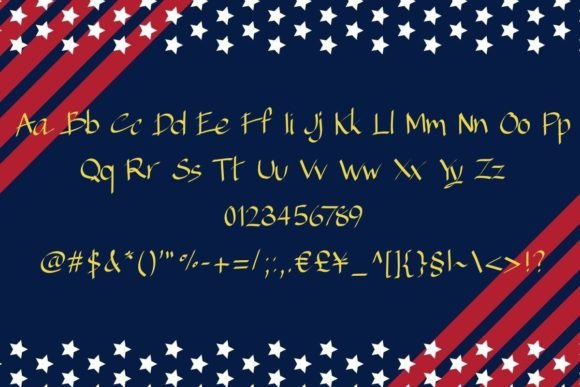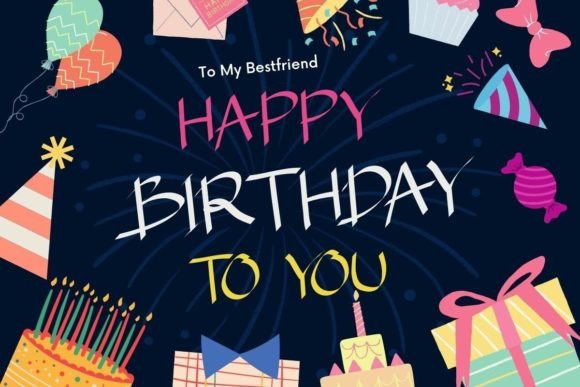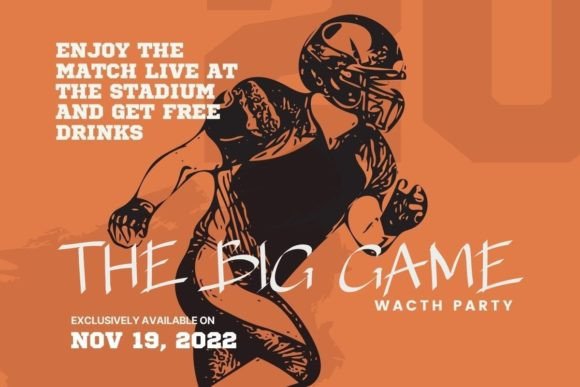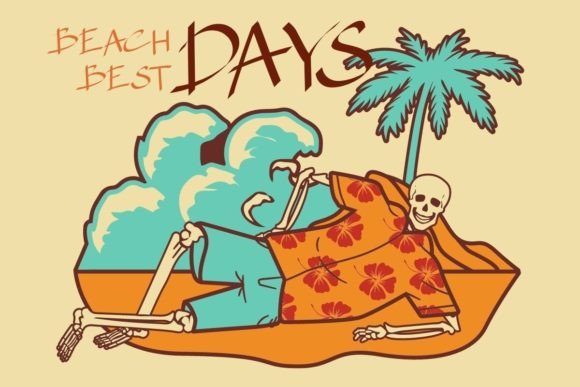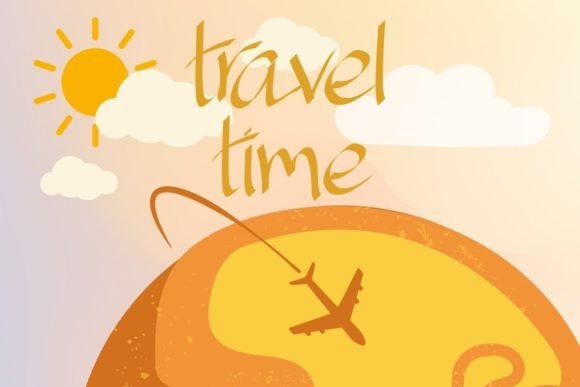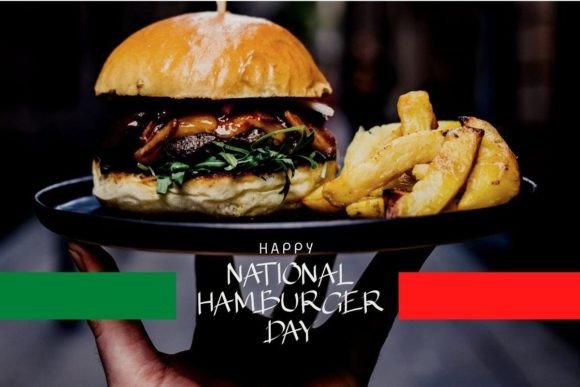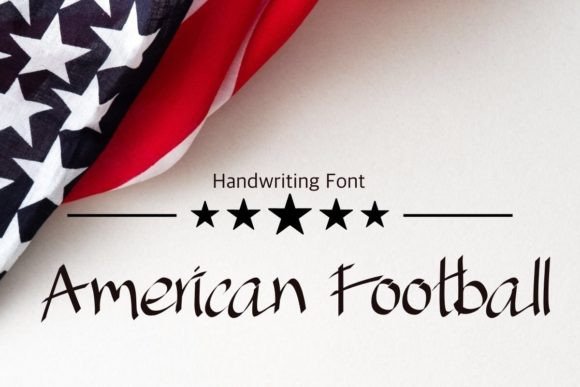
The Ultimate Guide to American Football Font: A Designer’s Best Friend
I’ll never forget the time I was working on a project for a sports brand, and I just couldn’t find the right font to match their energetic vibe. The client wanted something fun, yet clean and clear. That’s when I stumbled upon the American Football font, and it was love at first sight! 💕 In this article, I’ll share my experience with this amazing font, its features, and how to make the most of it in your designs.
An Honest Review of American Football Font
So, what makes American Football font so special? Let’s dive into the good stuff! 😊
- ✨ Clean and clear characters: This font boasts crisp, well-defined letters that are easy to read, even at small sizes.
- ✅ Versatile: American Football font pairs well with a wide range of designs, from sports-themed projects to more creative endeavors.
- 🎉 Fun and playful: The handwritten style of this font adds a touch of personality to any design, making it perfect for projects that need a bit of whimsy.
Of course, no font is perfect, and American Football font has a few minor quirks:
- 🤔 Limited formal use: Due to its playful nature, this font might not be the best choice for very formal or professional projects.
- ⚠️ Some letter variations: While the font has a wide range of characters, some letters might have limited variations, which could impact its use in certain designs.
The Story Behind American Football Font
While the true origins of American Football font are unclear, it’s likely that it was inspired by the world of sports and the energy of American football. Imagine a designer who’s passionate about sports, sitting in a stadium, and sketching out letters and words in their notebook. That’s how American Football font might have been born!
| Font Name | American Football Font |
| Author | PeamCreations |
| What makes American Football font so versatile? | Its clean and clear characters, combined with its playful handwritten style, make it suitable for a wide range of designs. |
| Is American Football font suitable for body text? | While it’s possible to use American Football font for body text, it’s better suited for headlines, titles, and short paragraphs due to its playful nature. |